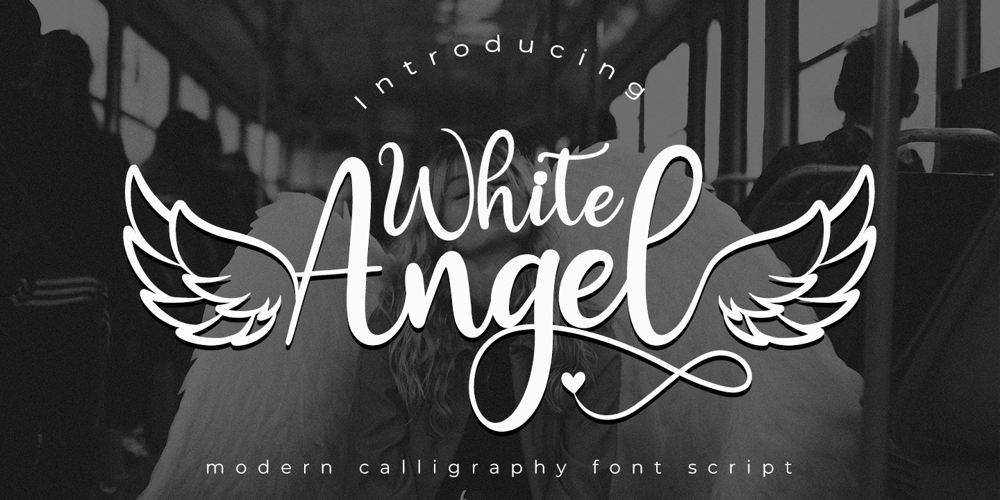
White Angel Font Family was designed by Muhammad Zaini and published by Cocodesign. White Angel contains 1 styles and family package options. Baby Angel Script is a modern calligraphy design, including Regular. This font is casual and beautiful with swash. Can be used for various purposes. such as logos, product packaging, wedding invitations, branding, headlines, signage, labels, signatures, book covers, posters, quotes, and more.